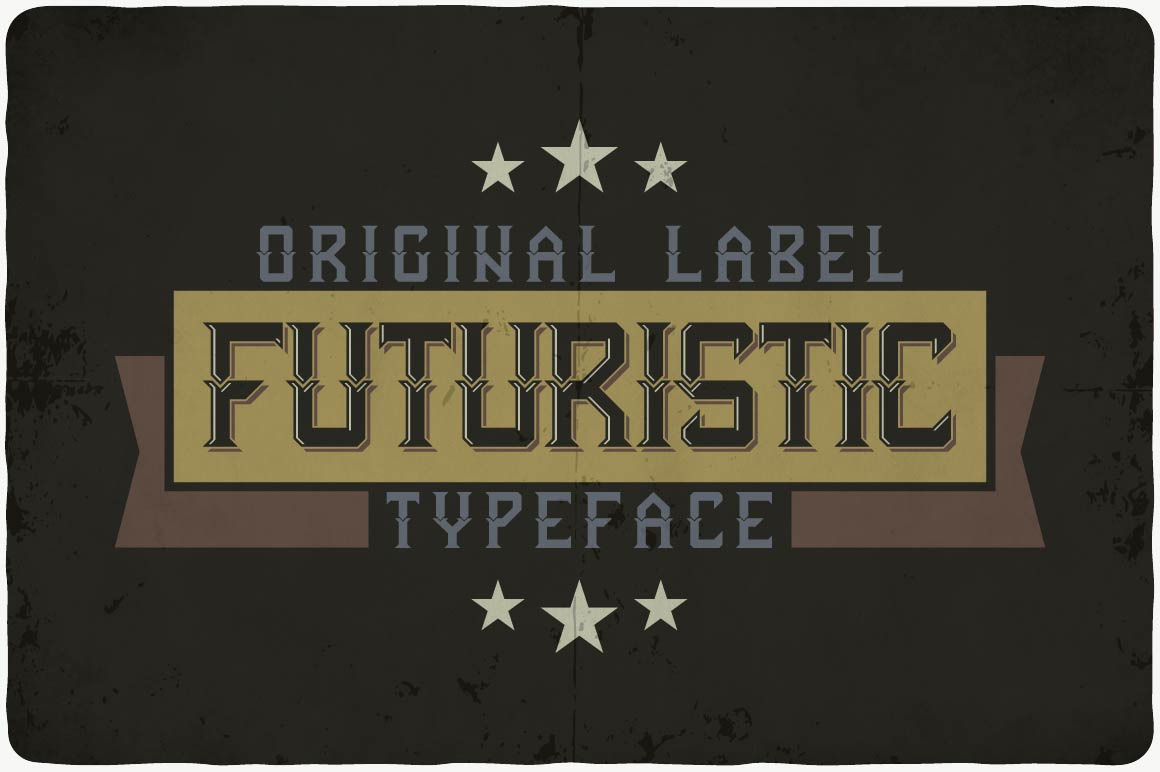
Futuristic typeface
Introducing a vintage look label typeface named "Futuristic". This typeface includes four styles, for sample look at 5th preview. Typeface will good viewed on any yours design.